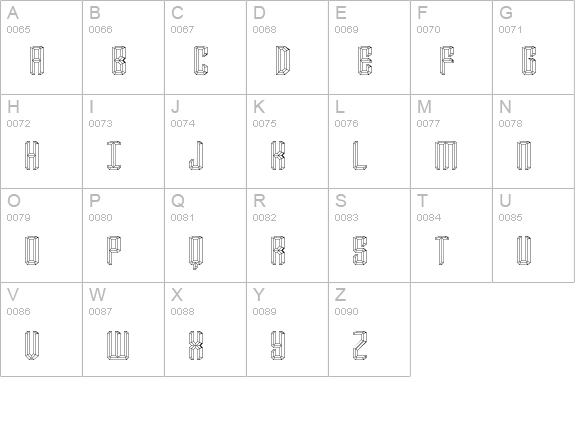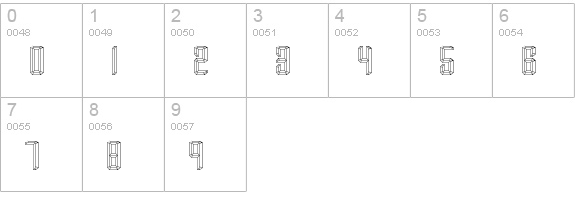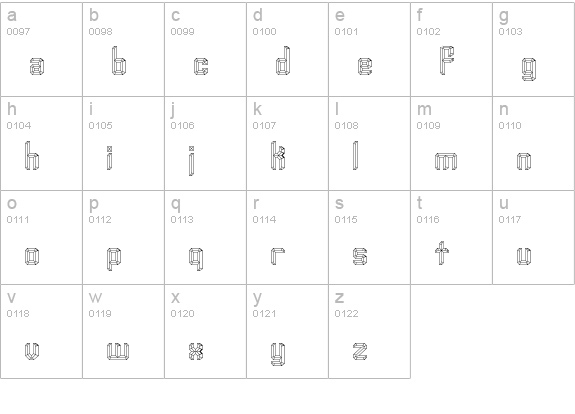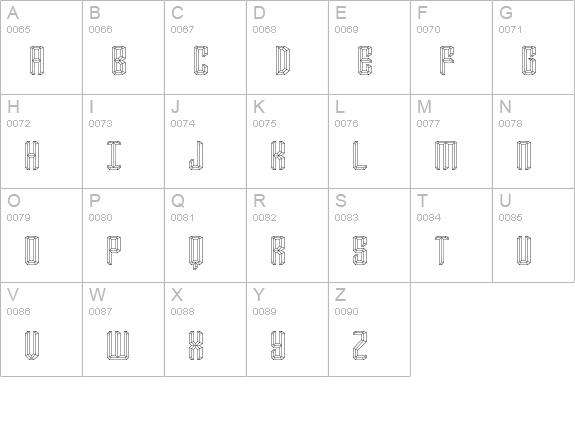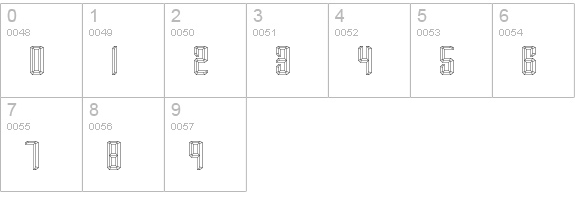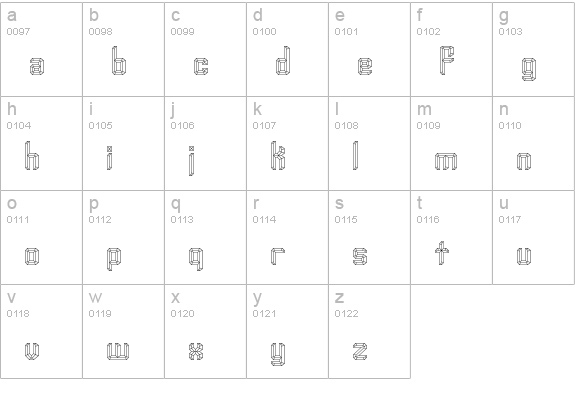
Your Complex O BRK Font Details
Your Complex O BRK font is a visually striking and intricate typeface that exudes elegance and sophistication. With its ornate design and intricate details, this font adds a touch of luxury to any project it is used in. The unique blend of curves and sharp angles creates a captivating and dynamic look that is sure to make a statement. What sets Your Complex O BRK font apart is its versatility – it works equally well for both display and body text, making it a great choice for a wide range of design projects. Whether you're creating a logo, website, or printed materials, this font will add a touch of style and flair. And the best part? Your Complex O BRK font is available for free download at FontsMarket.com. This means you can easily access this stunning typeface and use it in your projects without any cost. Don't miss out on the opportunity to elevate your designs with this beautiful and unique font. Download Your Complex O BRK today and let your creativity shine!